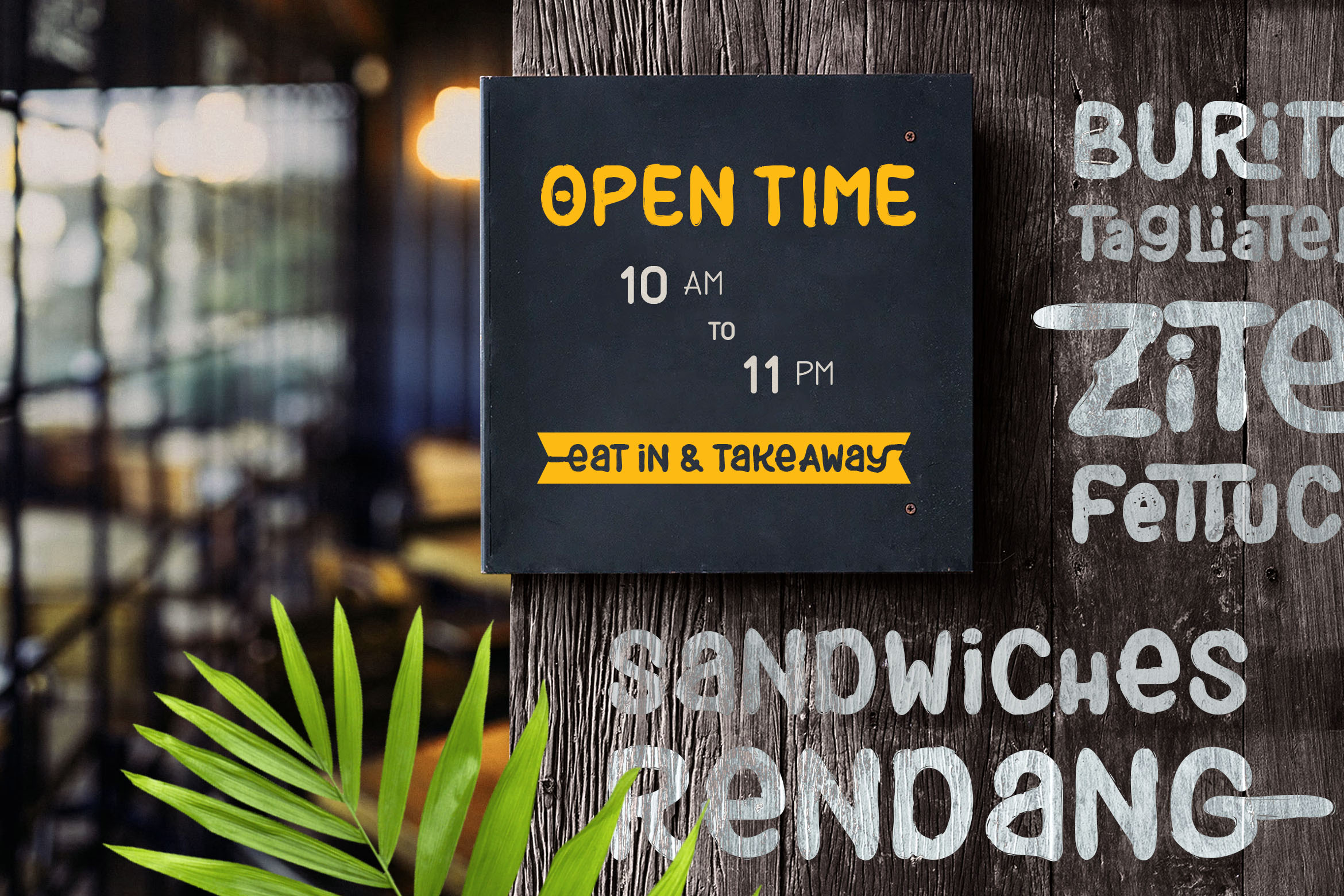
Black burger font
Black Burger téléchargement gratuit de polices.Black Burger Font Family We're proud to introduce Black Burger Font Black Burger – Delicious and playful font with a vintage type design style THE FONTS INCLUDED : 4 FONTS ( As Opentype and Truetype - . 31 031 téléchargements (4 hier) Gratuit pour un usage personnel. Black Burger Rough. Download free black burger . A cross-platform design system for creating high-quality digital experiences .
Pré-visualização customizada. Material Design. :: Caractères de la police. Black Burger Rough by Black Burger ? (diq!Tendre en bouche, elle trouve parfaitement sa place dans ce burger gastronomique. Amusez-vous à .Free Black Burger Font is a delicious and playful font with a vintage type design style, but it still has a strong modern appearance, a wide range of ligatures, alternate characters.Bob's Burgers [TV Show] Font.Looking for Burger fonts? Click to find the best 21 free fonts in the Burger style. Black Burger by dyqta.Looking for a delicious font? We’re proud to introduce Black Burger Font.Black Burger font. Skip to content.
Une sauce burger faite maison. Le prix d'un menu avec . Take a big bite out of Brontoburger! This 3 member family is defined by its loose, laidback appearance but stops short of being too rough around the edges. Discover a world of captivating typography for your creative projects.Black Burger is a cute and fun display font with a unique feel.1 styles for Windows. Black Burger Rough font. Google Design highlights the breadth and craft of design and fonts from . Black Burger – Delicious and playful font with a vintage type design style, but it still has a strong modern appearance A wide range . The quick brown fox jumps over the lazy dog. in Fancy > Cartoon.Black Burger Font - What Font Is - Download Black Burger font. Custom preview. Black Burger Rough - 287 chars | View charmap. If you want the full version and license for commercial use, you can purchase here:To preview the Black Burger Rough font, simply enter the desired text or characters in the field below: Your text, for example, fontsforyou. SIMILAR FREE FONTS for Black Burger. Size New Burger € by Khurasan . It will turn any . Utilisez l’outil générateur de texte ci-dessous pour . Download Black Burger font. in Fancy > Eroded. TTF (246 Kb) Extended information. A wide range of ligatures, alternate . Donate to author. Sans Serif; Serif Fonts; Slab Serif; Display; Blackletter; Script; Symbols; Top Fonts; Font Designers; Submit a font ; Home » Script Fonts » Black Burger Font. :: Fichiers de la police.Black Burger – Delicious and playful font with a vintage type design style, but it still has a strong modern appearance. Its softened corners produce a warm, friendly look suitable for many applications.
Note : This demo font is for PERSONAL USE ONLY! A wide range of ligatures, alternate characters, as well as four different type allow unique and versatile design options.
Please note that the on-screen appearance of the generated font text may differ from the images shown. It will turn any design project into a stand out! Black Burger is a cute and fun display font with a unique feel.Burger Free is a hand lettered display font that merges boldness with a playful spirit, adding a dose of lively charm to your designs. in Fancy > Cartoon 188,383 .
For commercial usage of this font the purchase of this license is required. Download @font-face Kit. Easily convert to webfont.Looking for a delicious font? 😋 We're proud to introduce Black Burger Font Family Black Burger – Delicious and playful font with a vintage type design style, but it still has a strong modern appearance A wide range of ligatures, alternate characters, as well as four different type allow unique andCritiques : 1
Free for Personal Use. Its thick, confident strokes give your words a powerful presence, making them stand out in any layout.Use the text generator tool below to preview Black Burger font, and create appealing text graphics with different colors and hundreds of text effects. Black Burger à € par endemiqLabs.